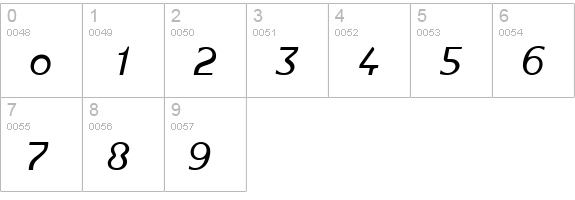
Gerstner Original Light Italic Font Details
Gerstner Original Light Italic is a refined, elegant, italic variant in the Gerstner typeface family \xE2\x80\x94 well suited to elegant body text, refined sub-headings, and luxury branding.
Gerstner Original Light Italic is a timeless and elegant font that exudes sophistication and grace. Its delicate slant and refined curves make it ideal for adding a touch of style to any project. The light weight of the font gives it a subtle and airy quality, perfect for conveying a sense of elegance and subtlety. This font is ideal for use in branding, editorial design, and any project that requires a touch of sophistication. Whether you're designing a wedding invitation, a high-end fashion magazine, or a luxurious product packaging, Gerstner Original Light Italic will add a touch of class and refinement to your work. And the best part? Gerstner Original Light Italic is completely free to download at FontsMarket.com. So you can add this beautiful font to your collection without any cost, and start using it in your projects right away. Don't miss out on this opportunity to enhance your designs with the timeless beauty of Gerstner Original Light Italic.